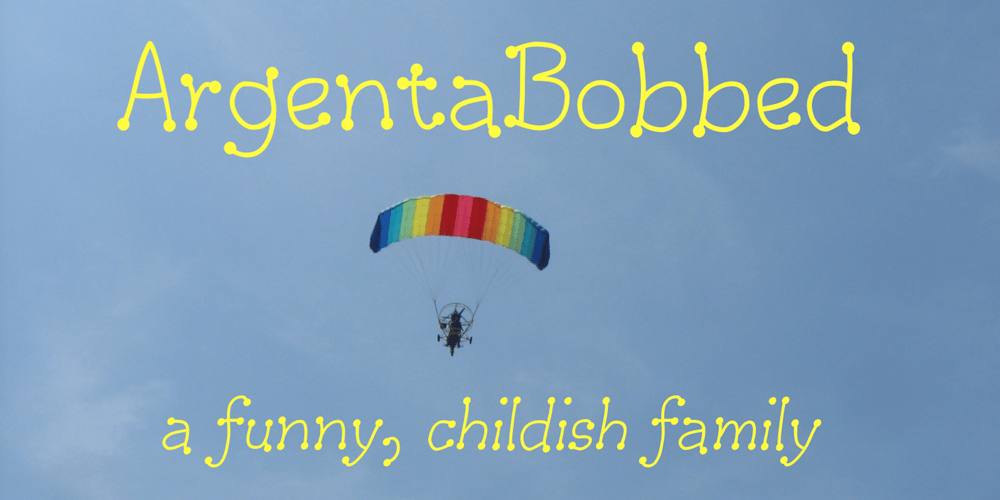
ArgentaBobbed Font Family was designed by Robert Schenk and published by Ingrimayne Type. ArgentaBobbed contains 6 styles and family package options. ArgentaBobbed is an informal, “hand-printing” font with little balls that some people, often children, like to add to the ends of strokes. Maybe it could be called a ball-serif or dot-serif font. The family has six members. Each of the two weights, plain and bold, have oblique styles. There are also two variants: ArgentaBobbed-Wig is squiggly handwriting with the dots, and ArgentaBobbed-Squish is condensed handwriting with dots.